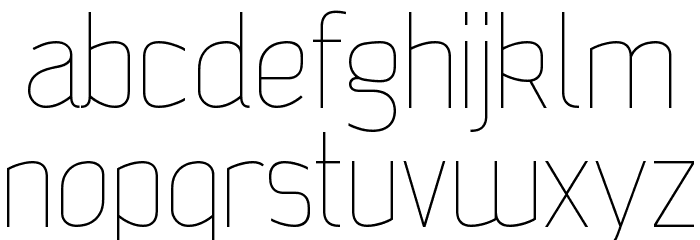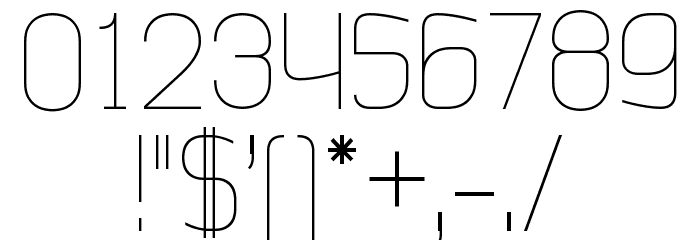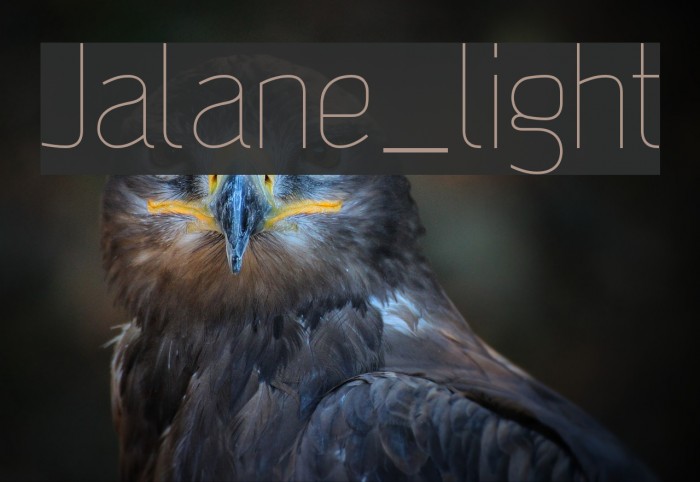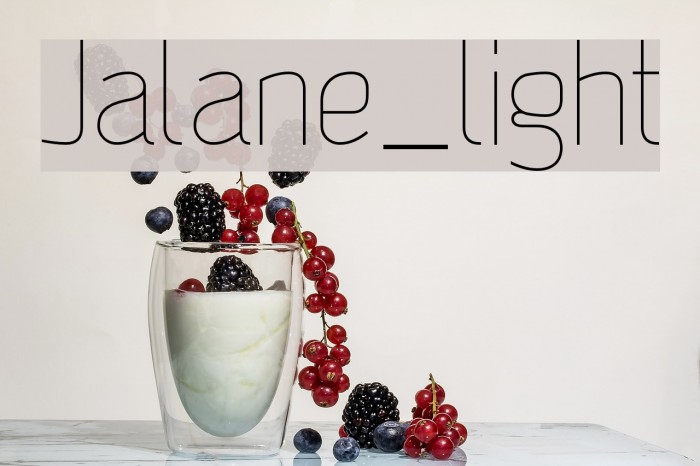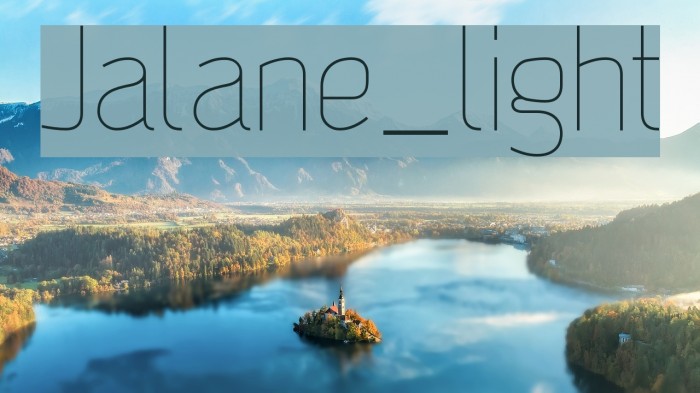
Jalane_light Font
This font features a sleek, modern design with thin, uniform lines that create a clean and minimalist aesthetic. The characters are slightly elongated, giving them an elegant and contemporary look. The uppercase and lowercase letters maintain a consistent style, with rounded edges and a geometric structure. The numerals are clear and easy to read, matching the overall style of the alphabet. Special characters are included, maintaining the same thin and precise line work. This font is ideal for projects that require a modern and sophisticated touch.
A sleek, modern font with thin, uniform lines and a minimalist aesthetic.
- Proposed Projects: Ideal for branding, modern web design, minimalist posters, and editorial layouts.